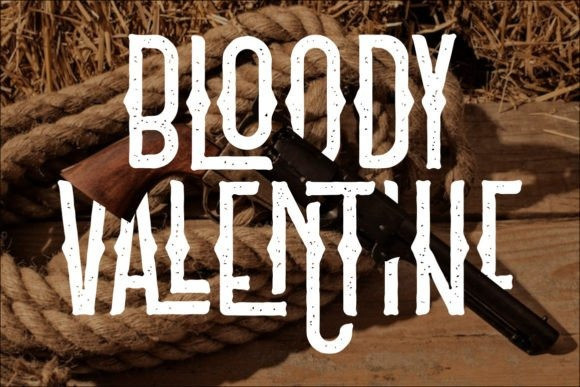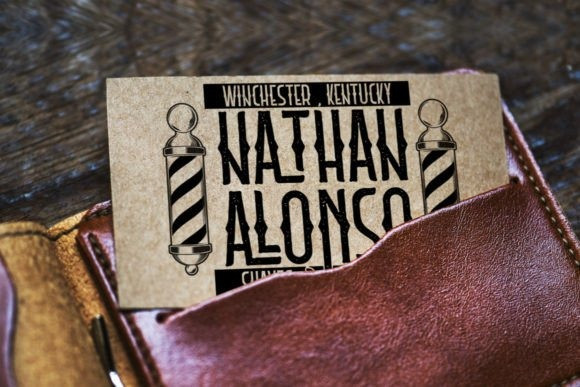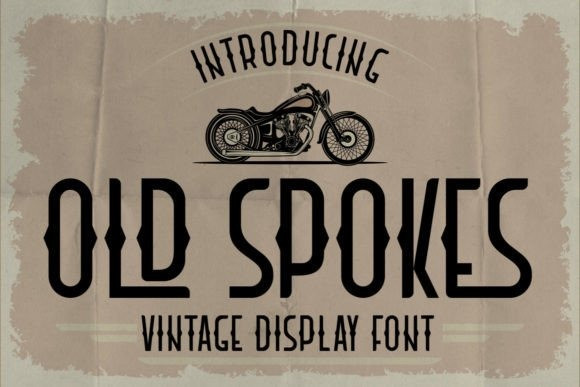
Old Spokes Font
Old Spokes Display Font is a cool vintage-style display font. Masterfully designed to become a true favorite, this font has the potential to bring each of your creative ideas to the highest level! Old Spokes is PUA encoded which means you can access all the glyphs and ligatures with ease!